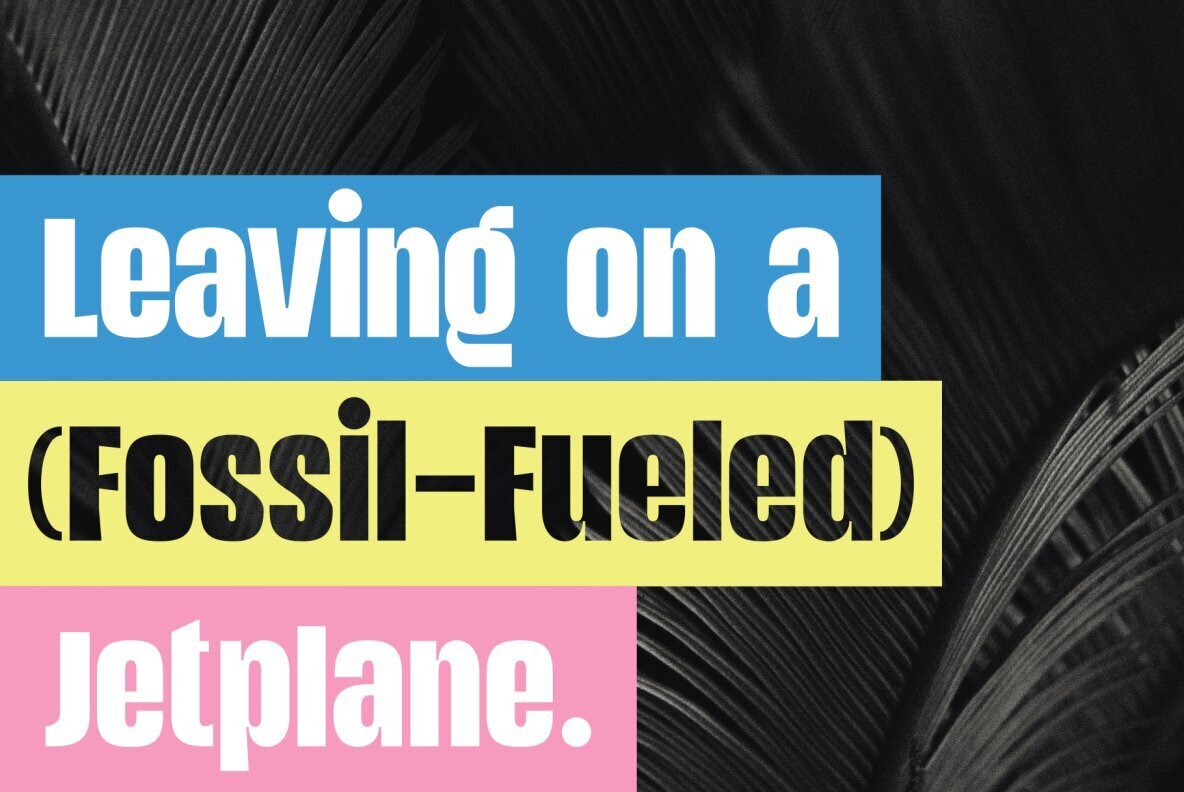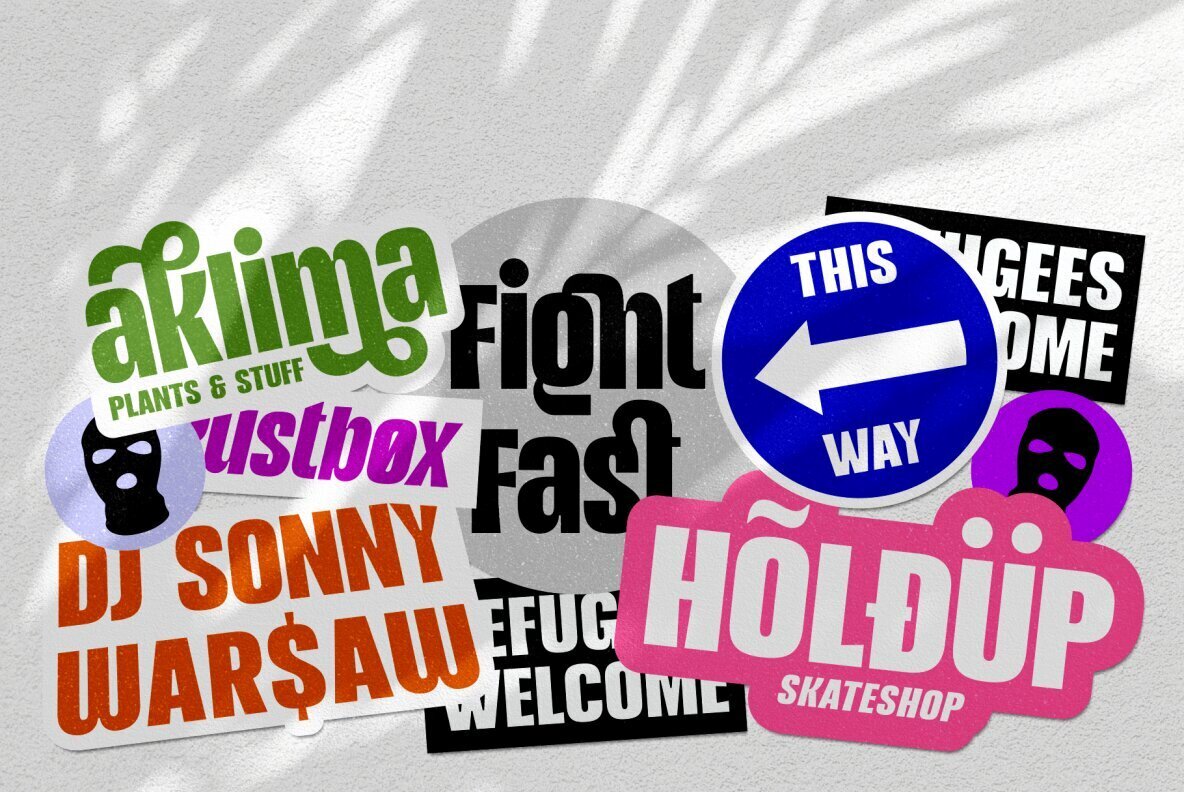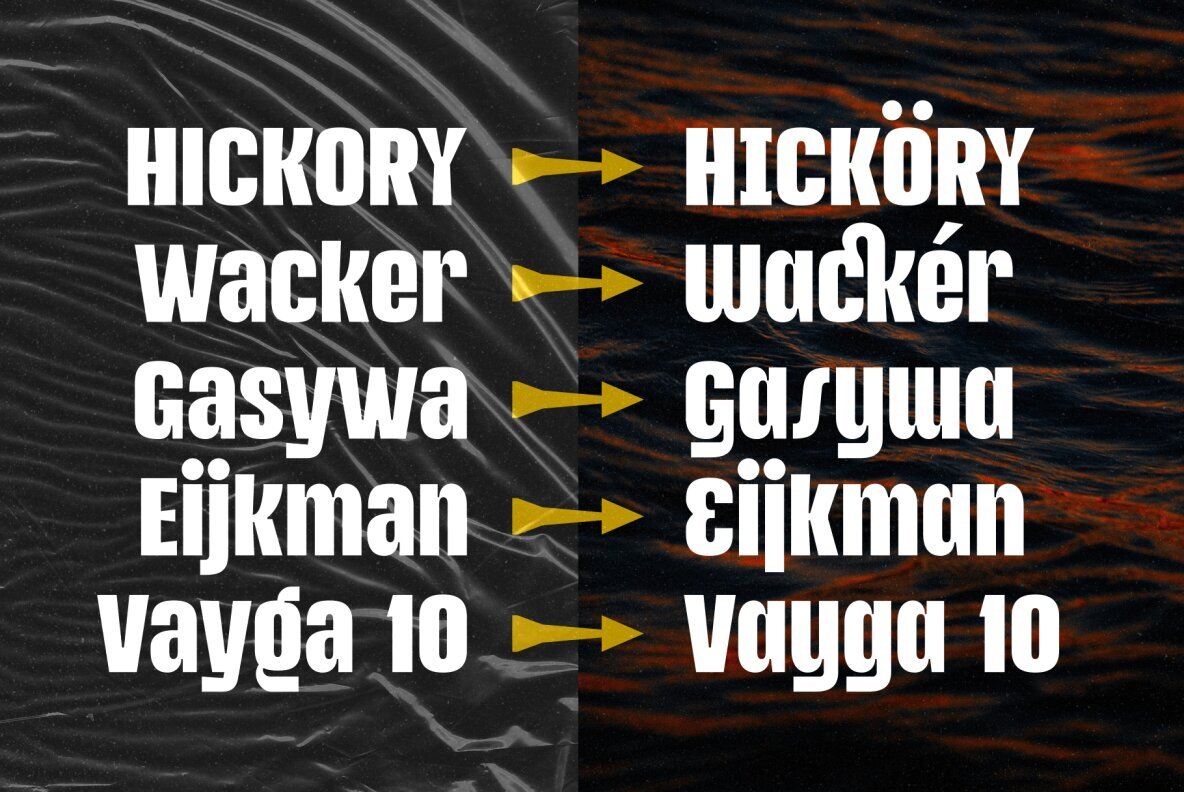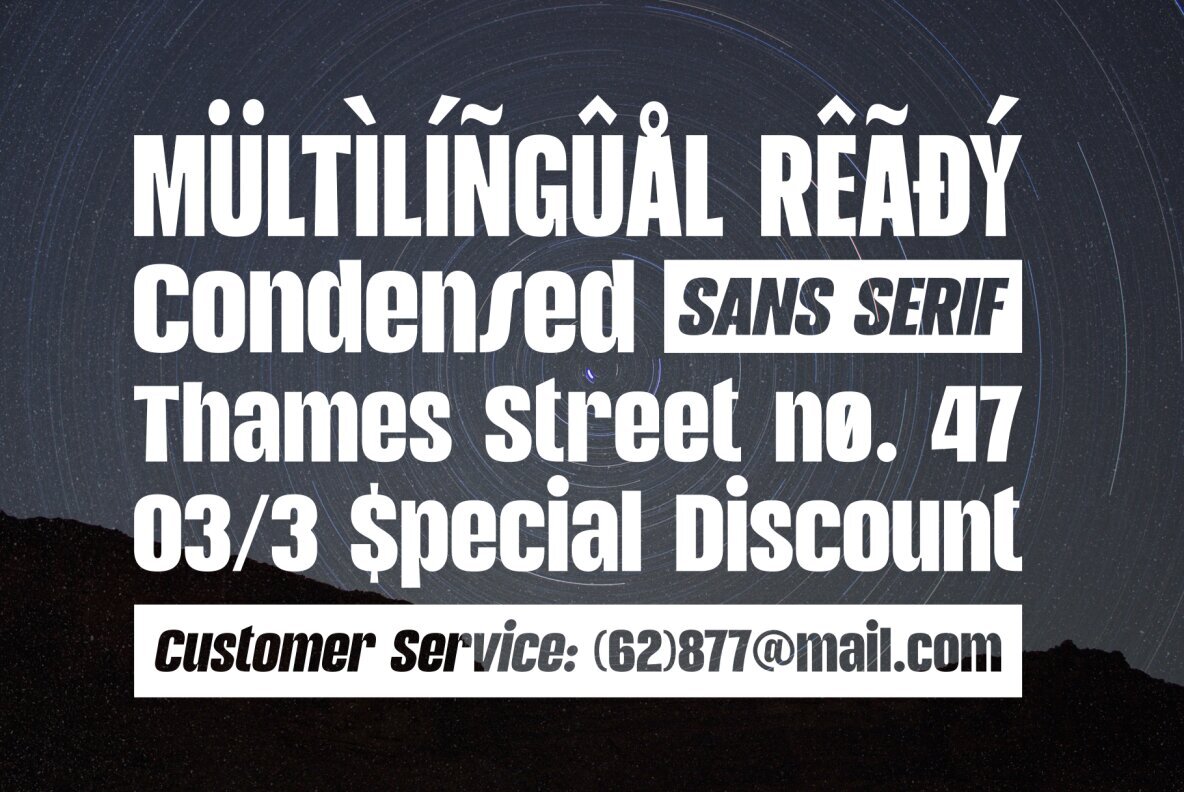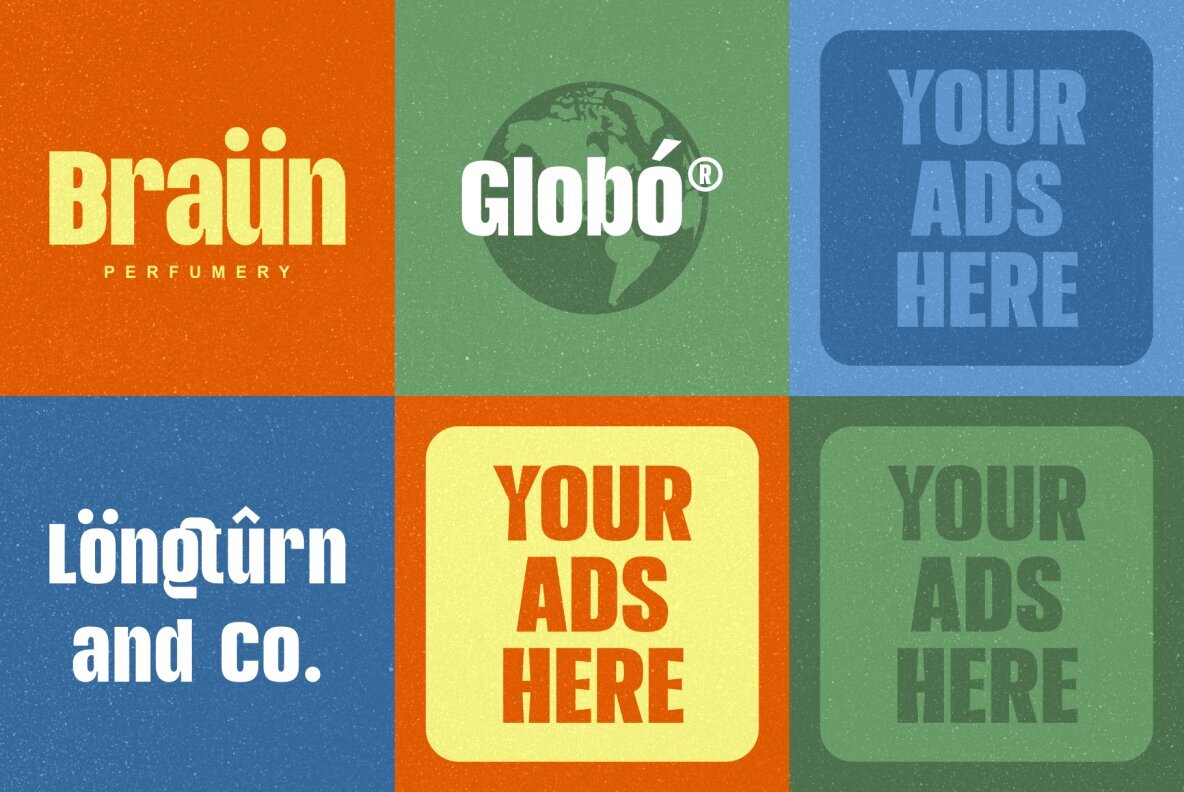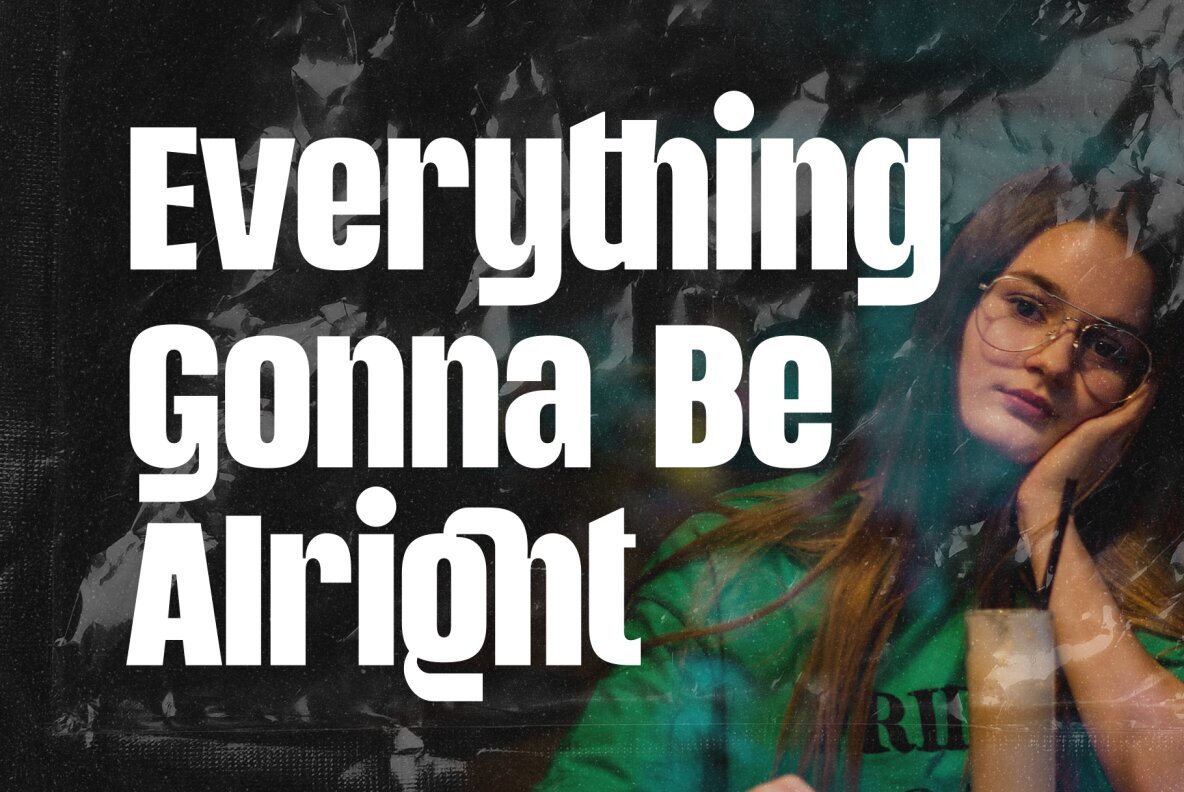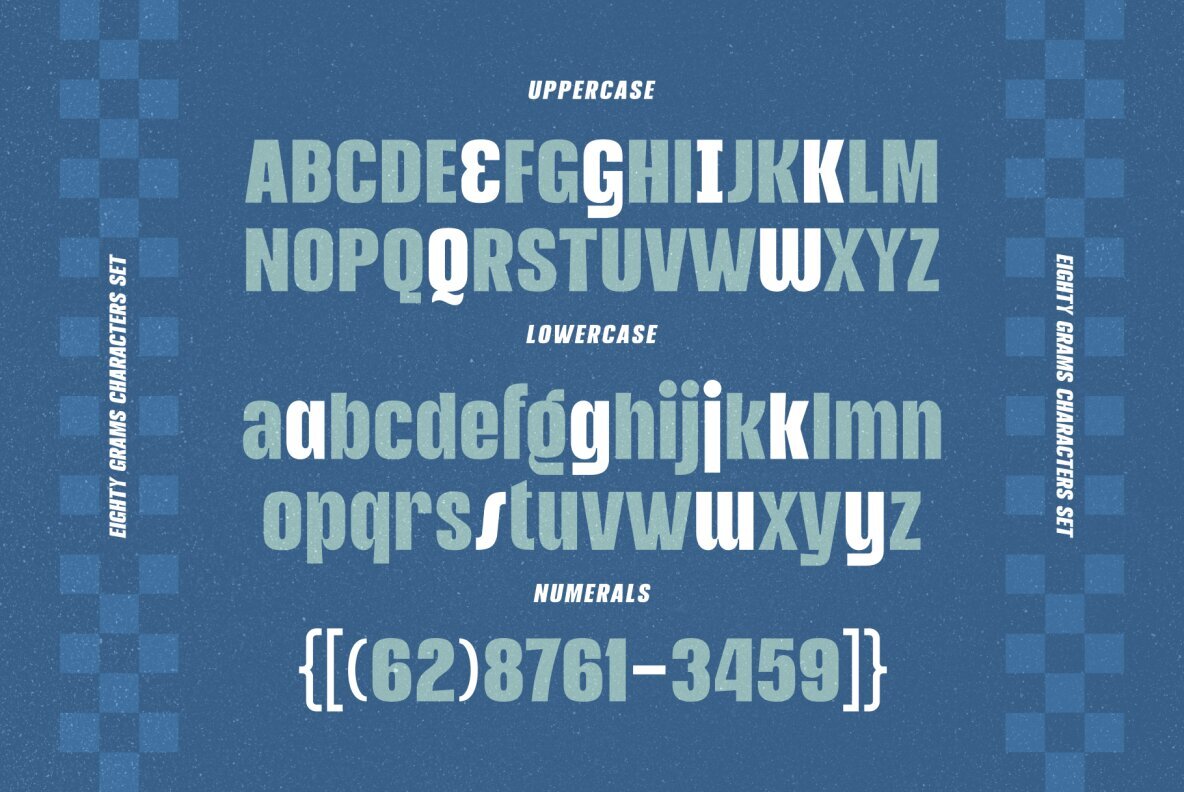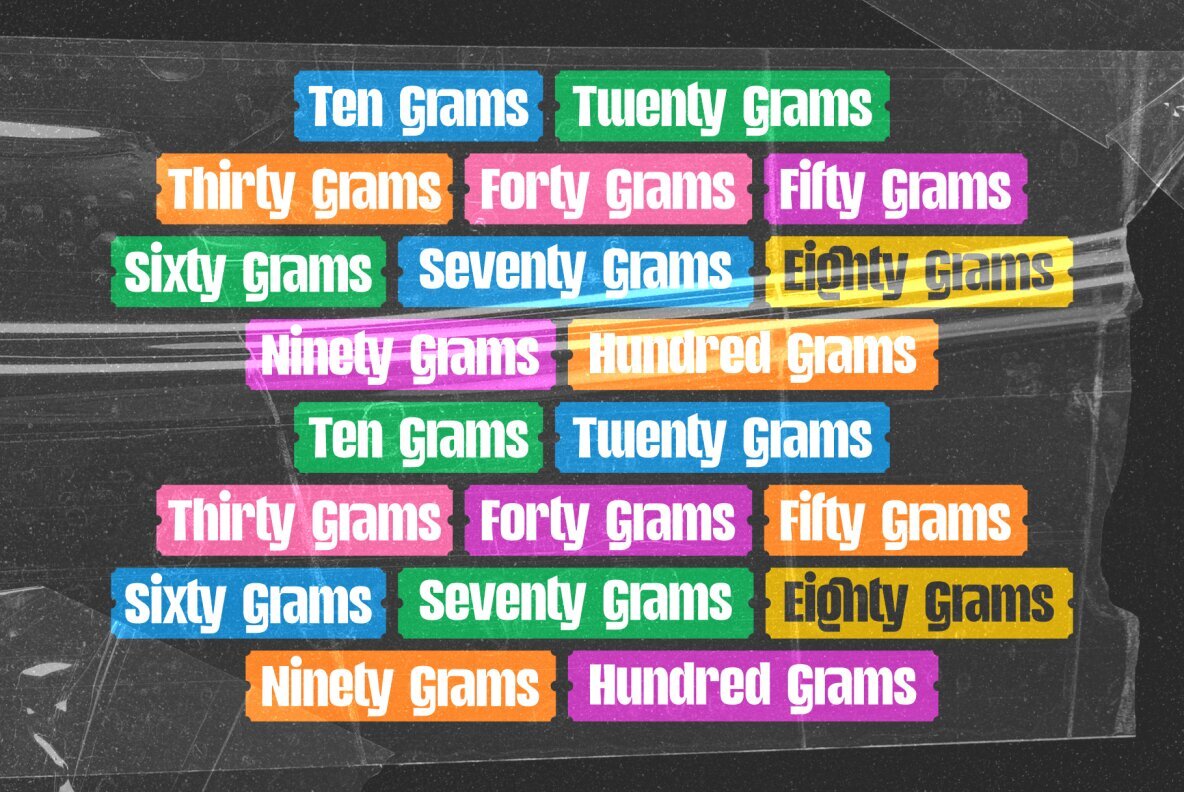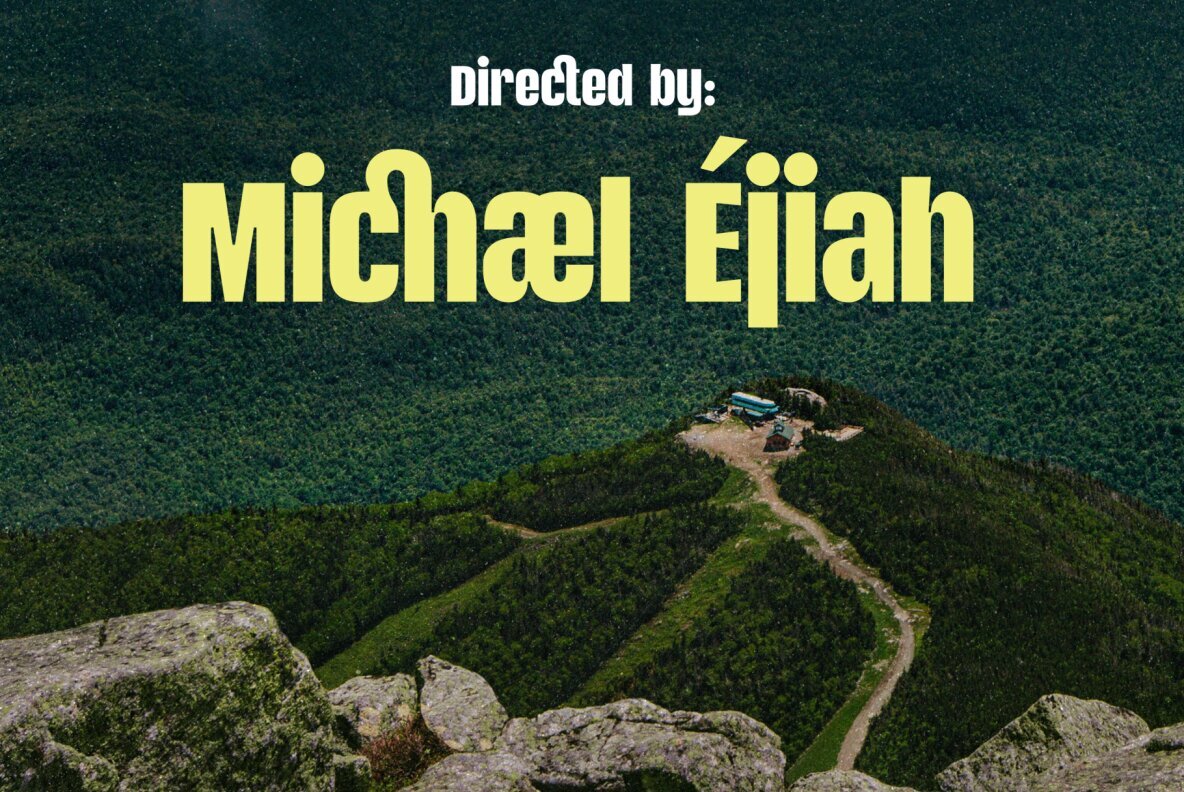
Eighty Grams Font
Eighty Grams
Eighty Grams Italic
Inspired by the high letters personality used in classic/vintage advertisements (mostly headlines), we now comes up with a new font; Eighty Grams. Digitally crafted with a bit touch of modernity, to make this typeface still relevant with latest design standard. Also explore the alternate and ligature characters to make your letter combinations experience more playful! Suits best for design that need a condensed and big striking letters as a main point, such as: logo/branding, headline, posted, quote, and many more. WHAT YOU'LL GET: